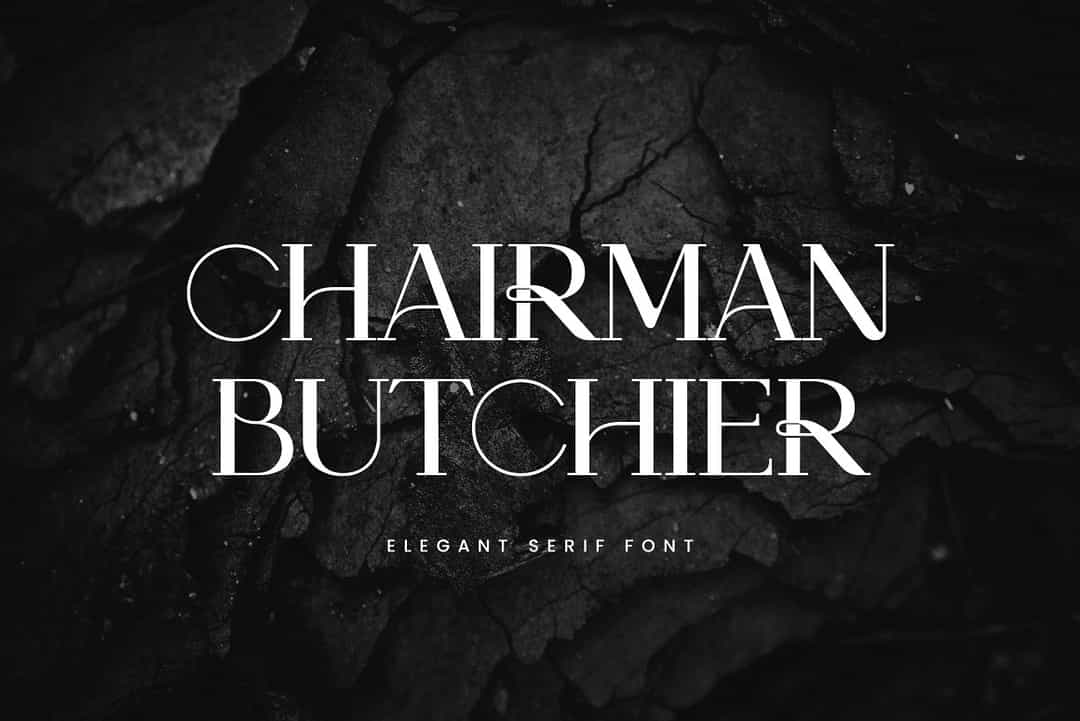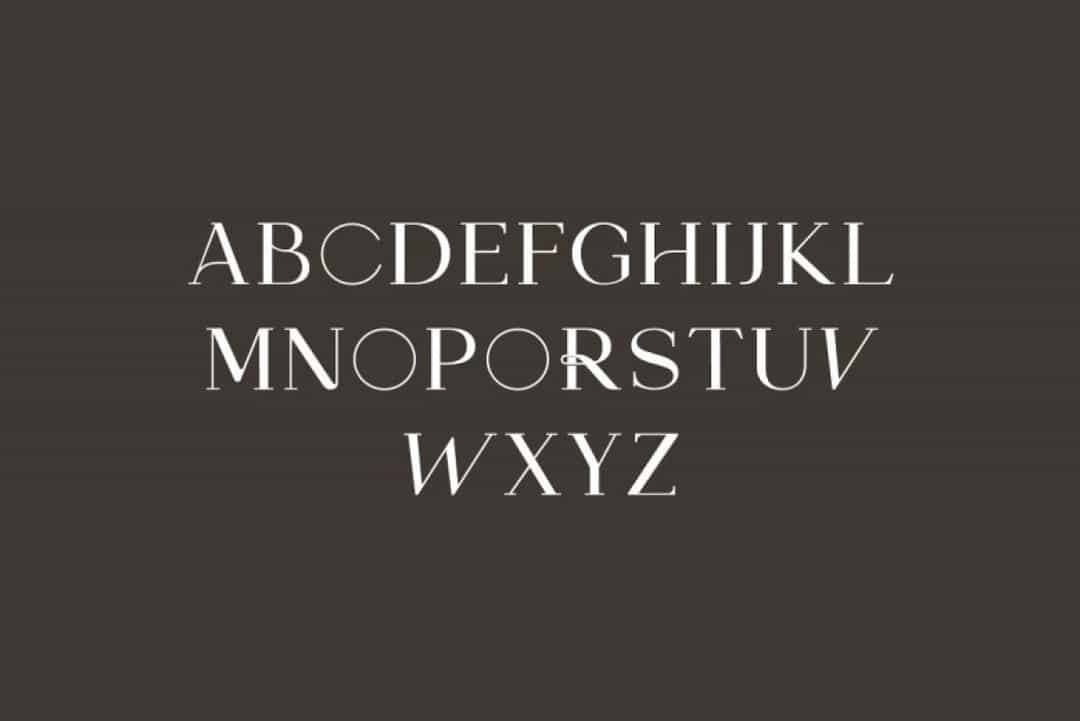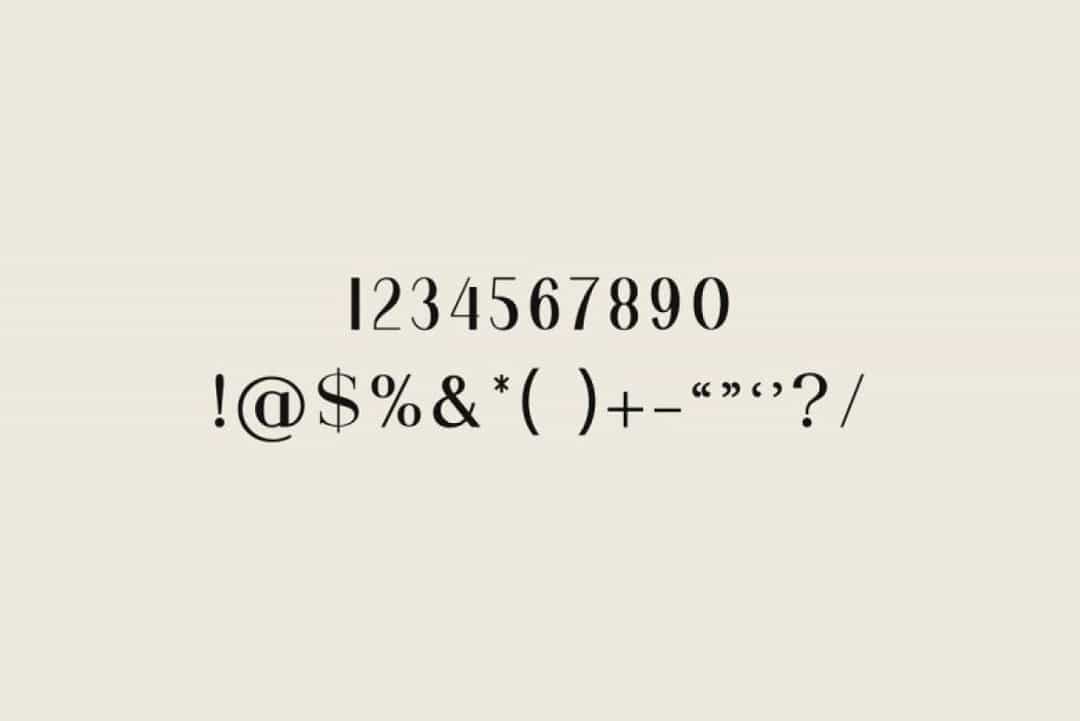
Chairman Butchier is an elegant, classy and contemporary serif typeface perfect for many projects ranging from stationary designs and signatures, wedding logos and signatures, typography quotes magazines or book covers, headers on websites as well as clothing packaging designs to branding for fashion-related branding and editorial design.